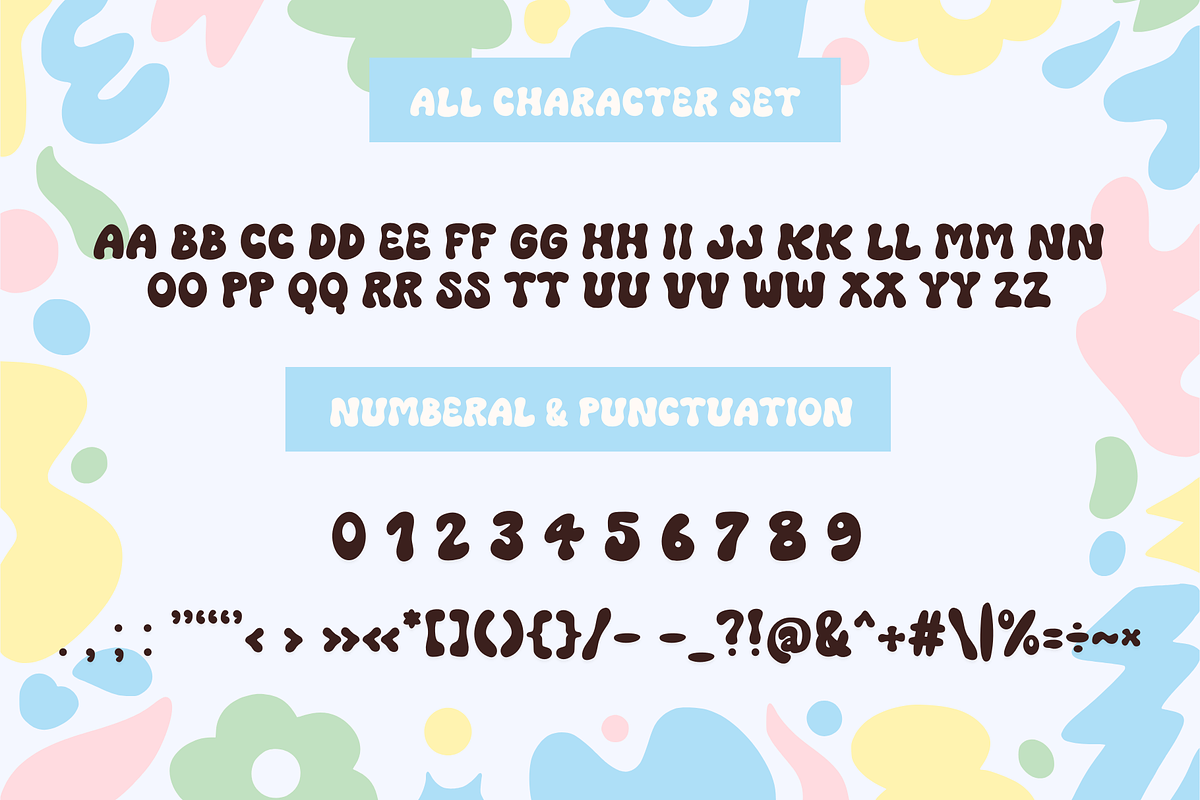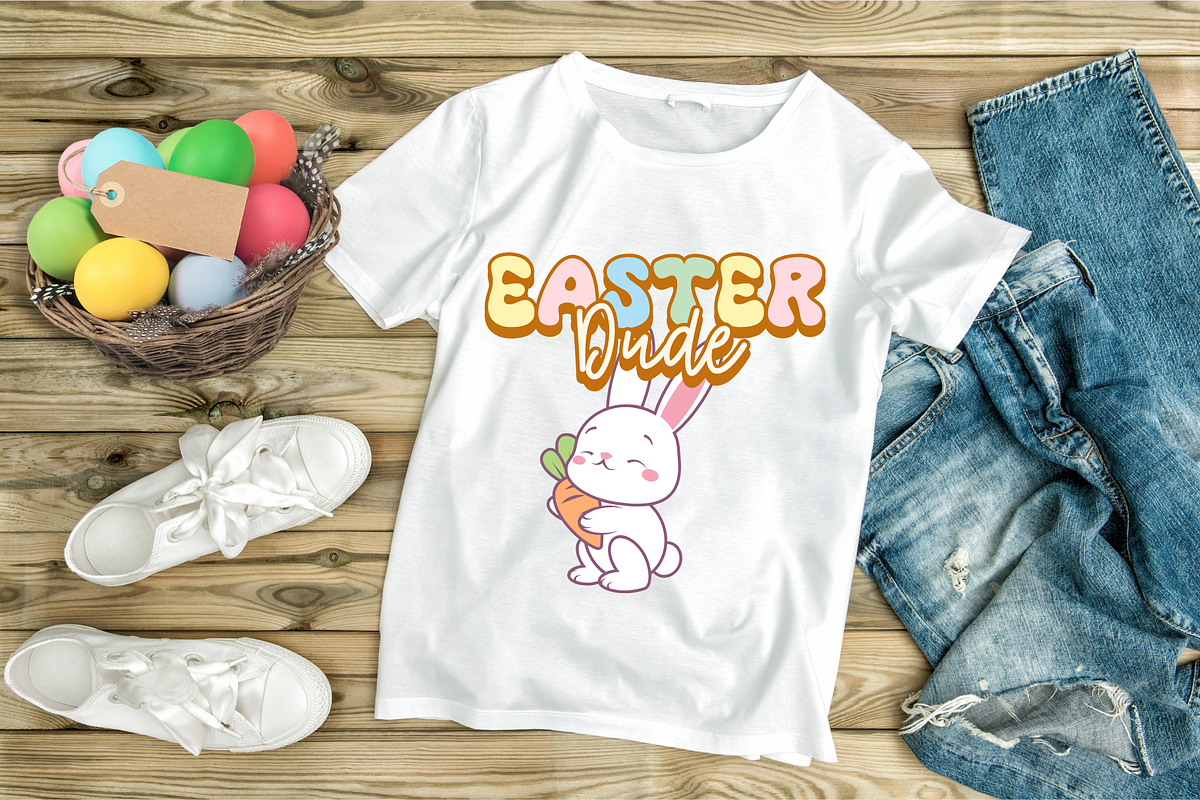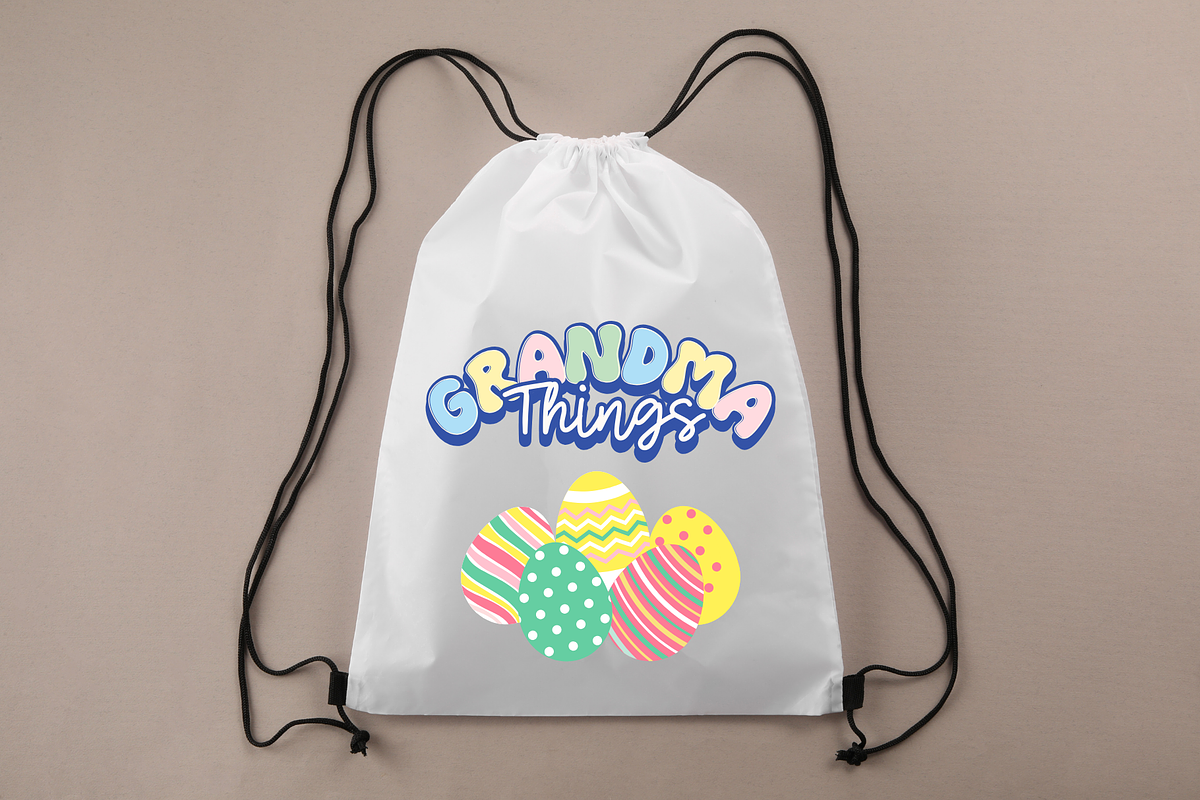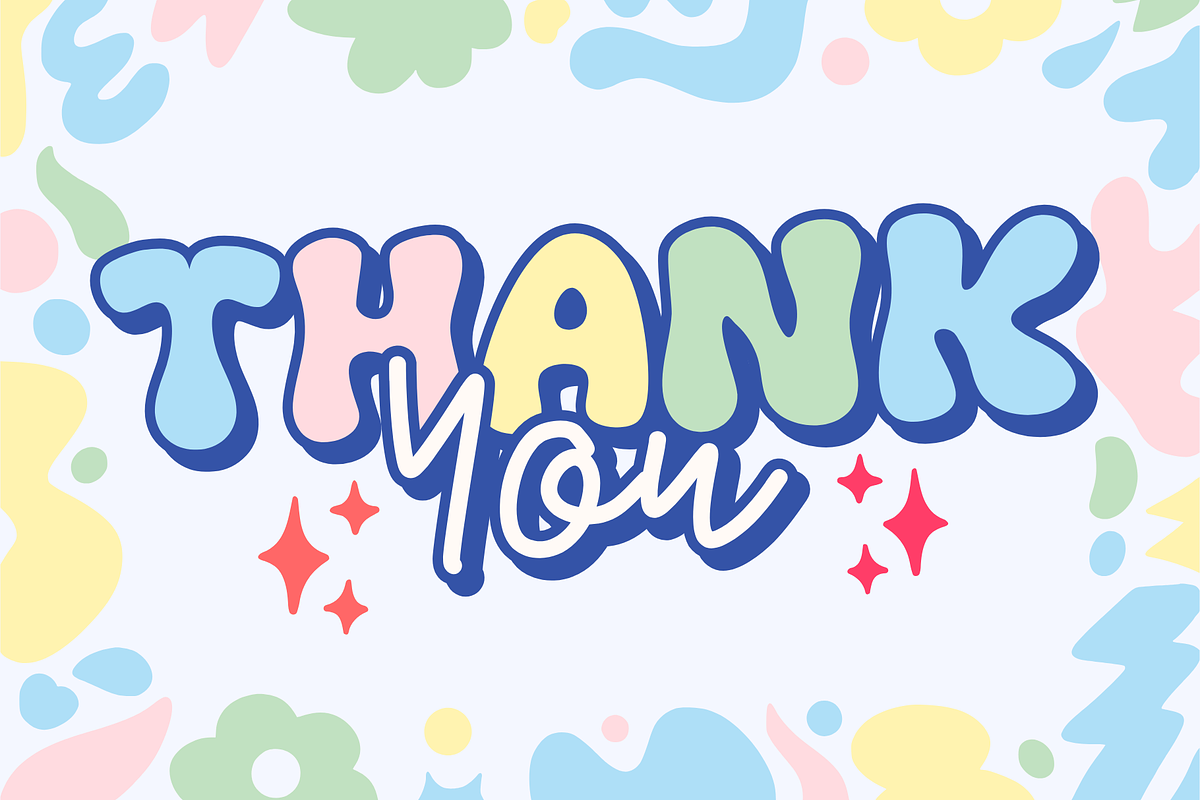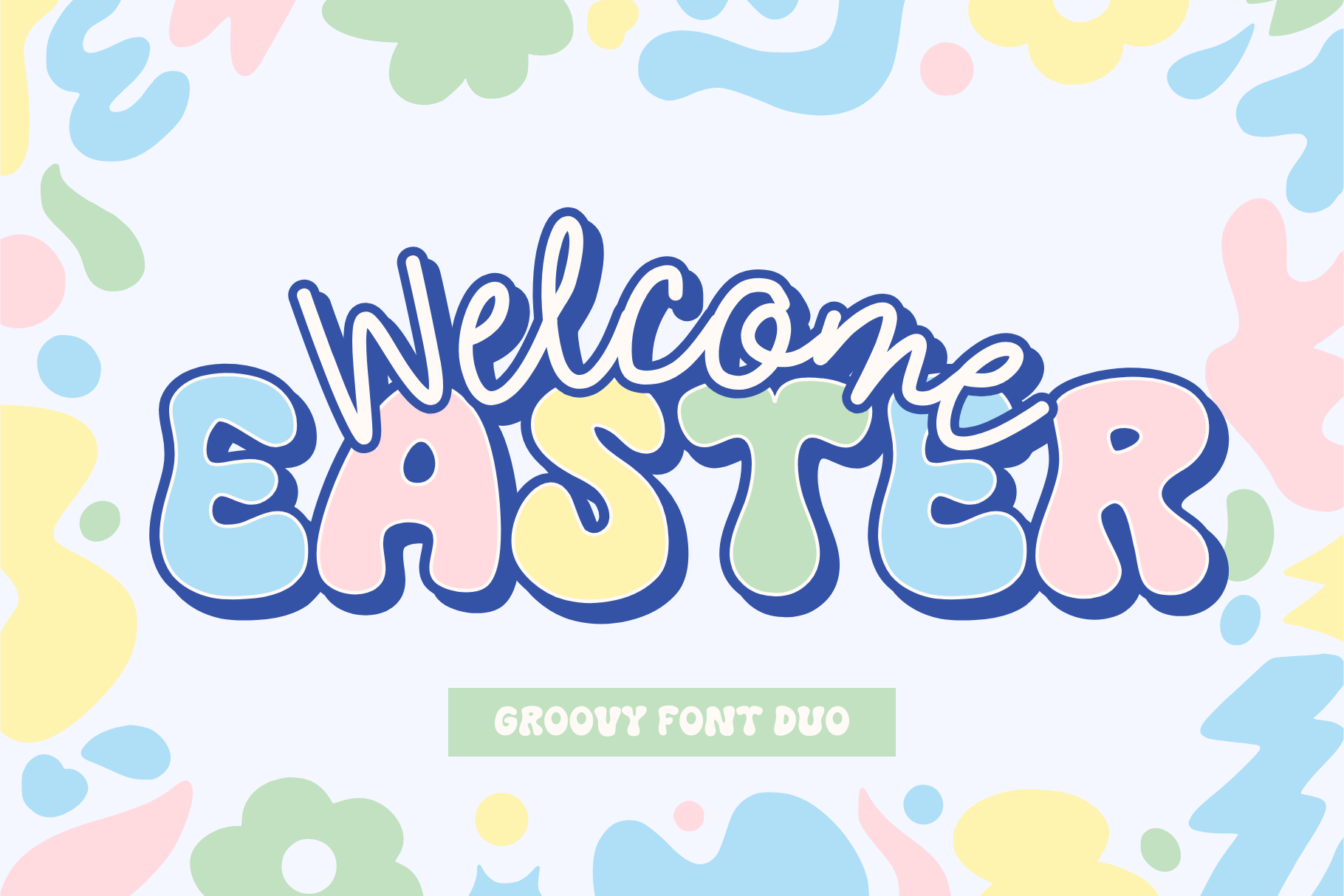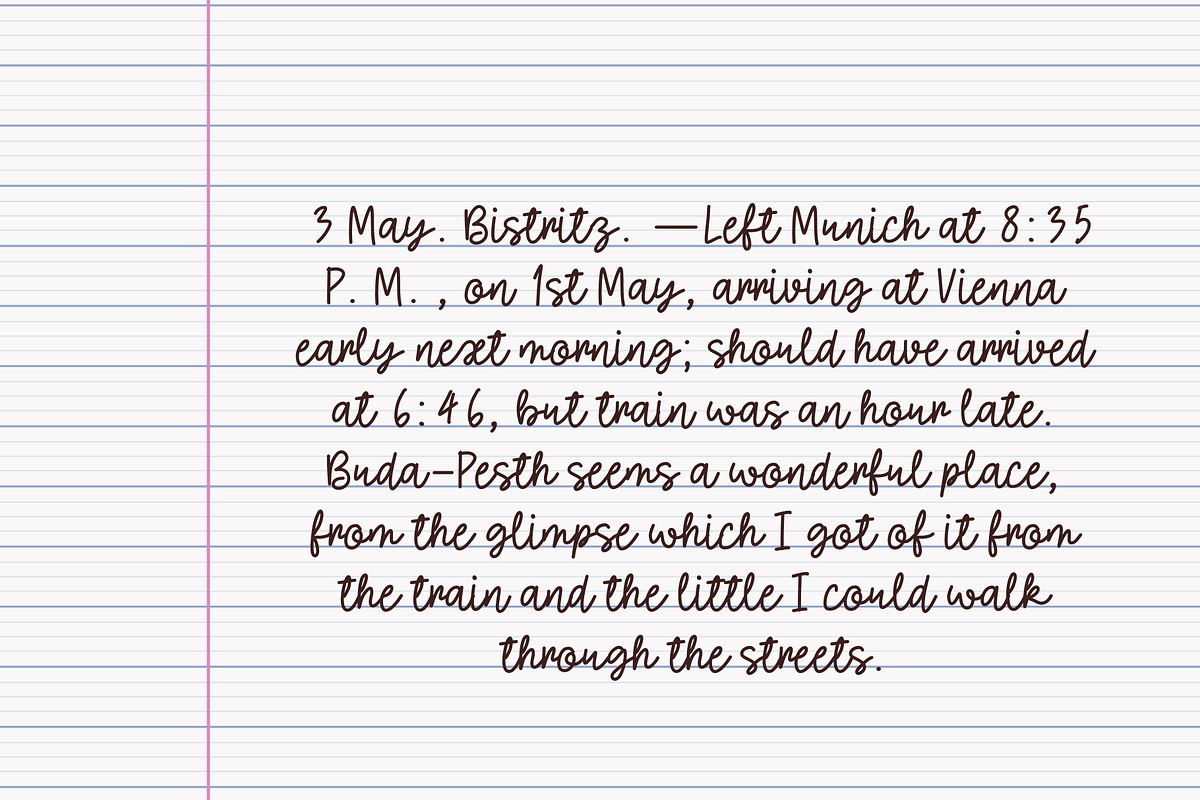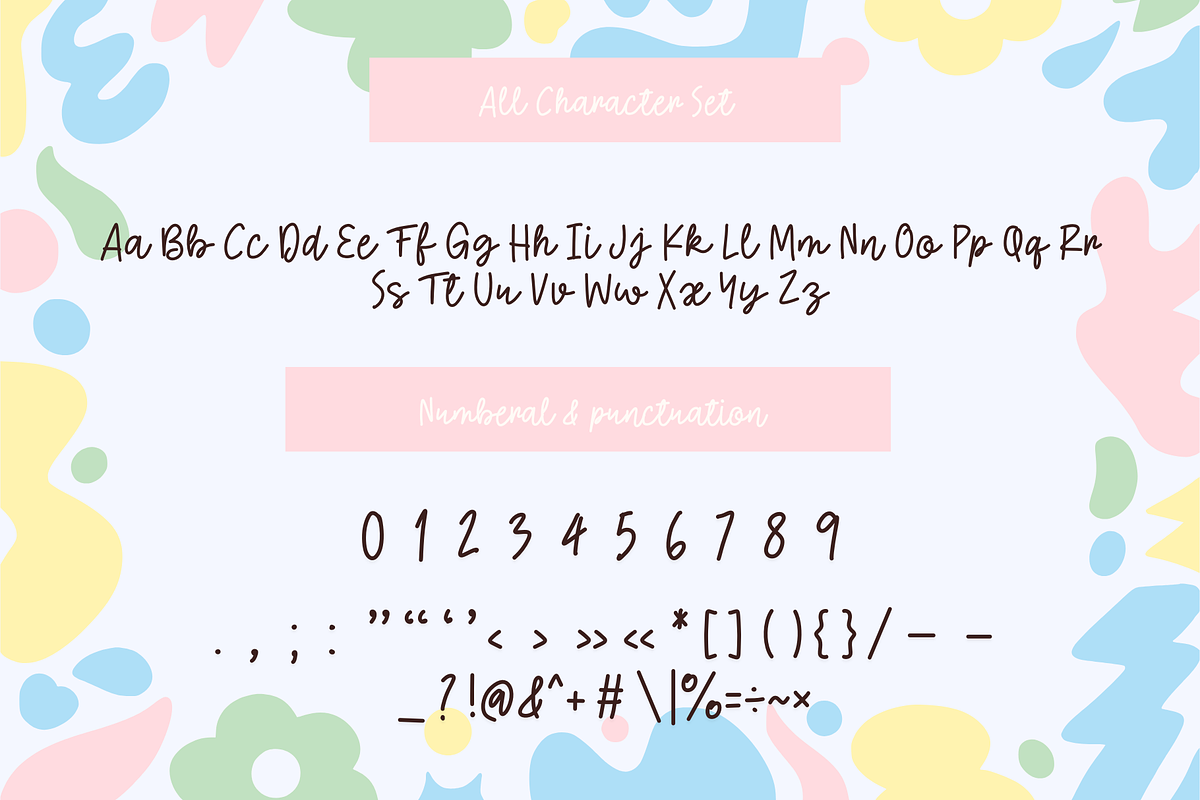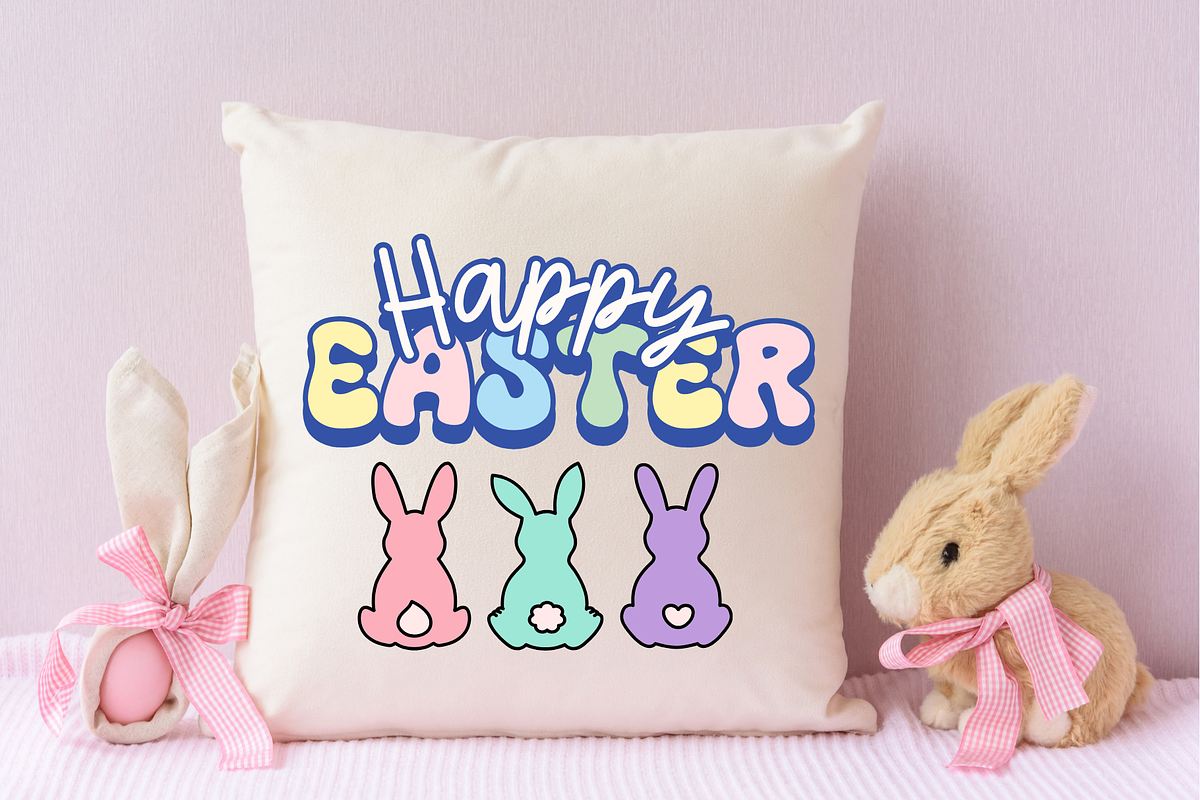
Welcome Easter is a Retro duo font
Welcome Easter is a stylish retro duo font, combining a display and handwritten typeface that exudes a cool and groovy aesthetic. Ideal for all your hippie-inspired designs, It embodies playfulness and authenticity and is the perfect choice for all your favorite projects, or even for blog posts, logos, branding, ads, invitations, greeting cards, planners, photo albums, decorations, and much more. Add it to any of your designs, and enjoy the results!